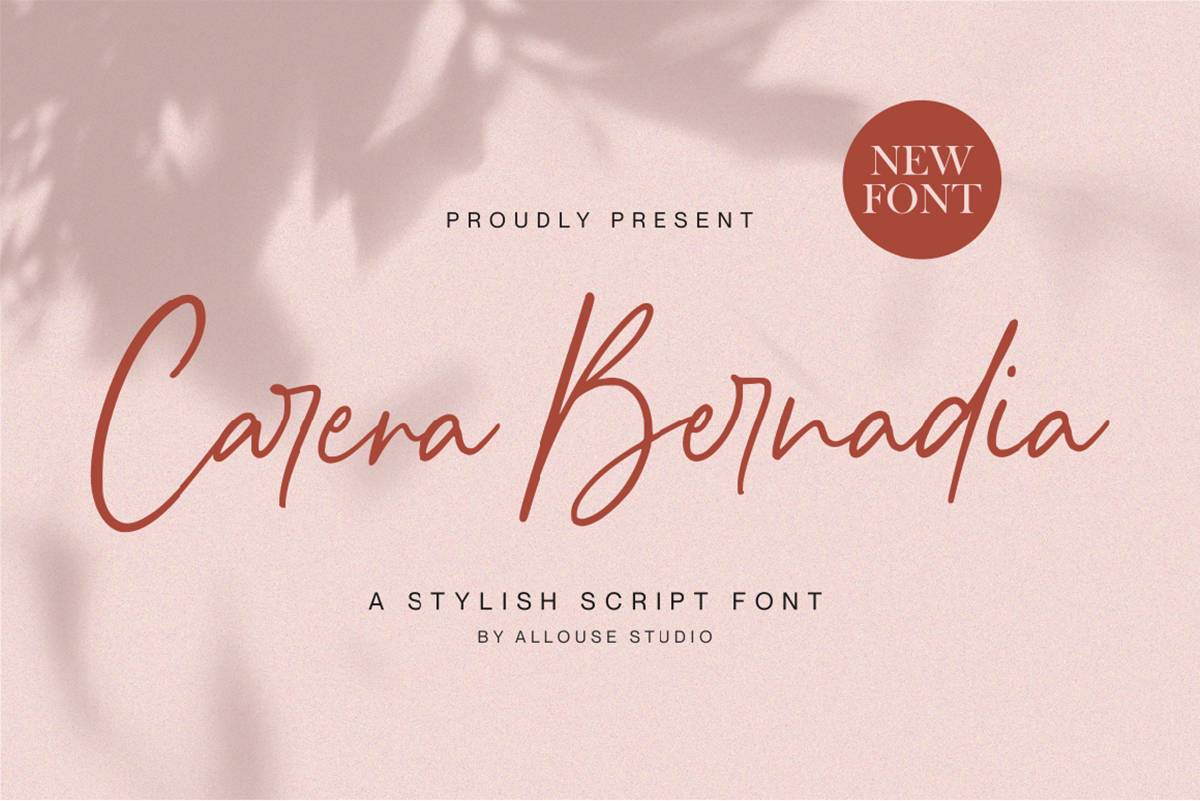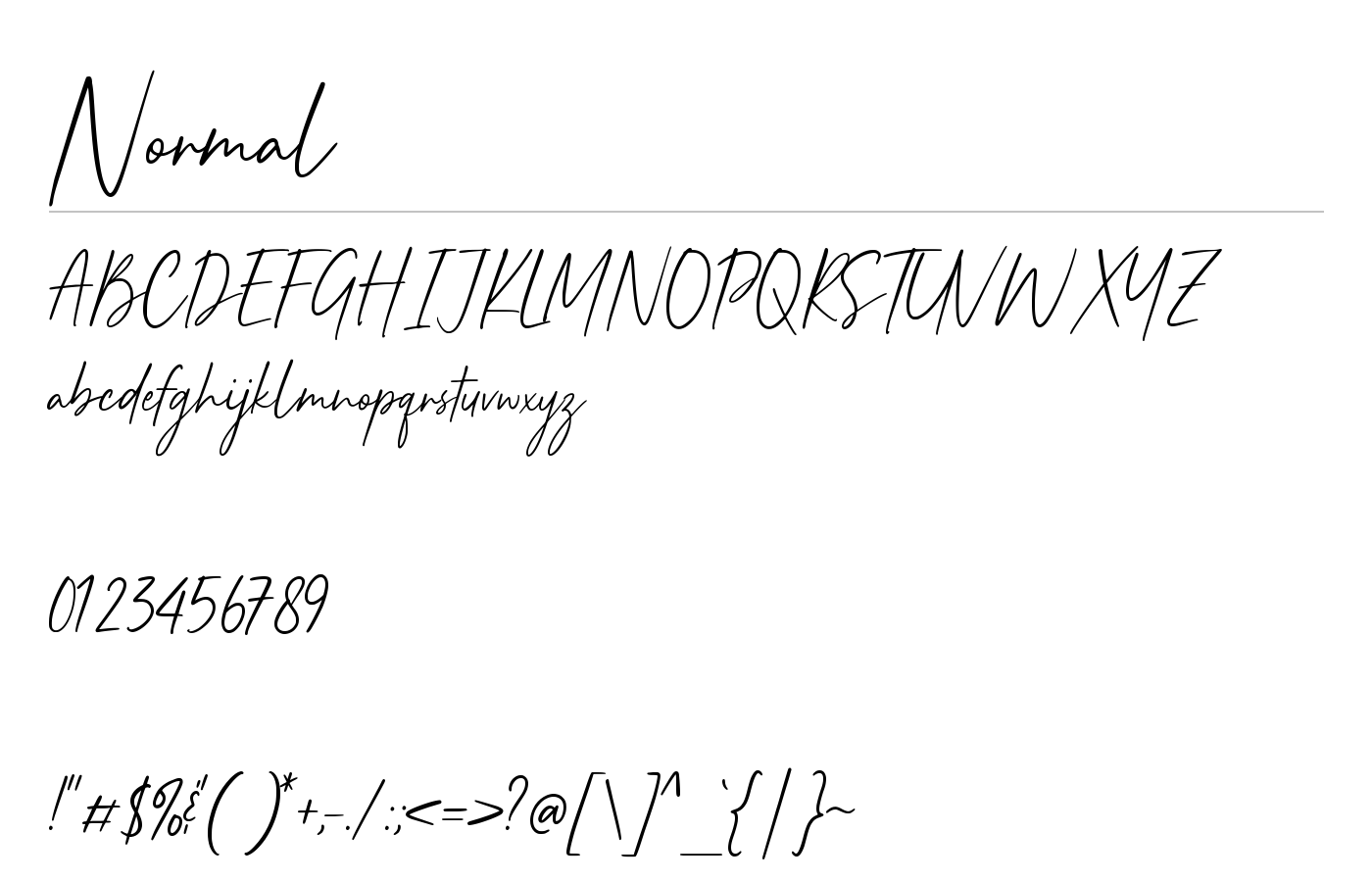
Carera Bernadia is a delicate, handwritten script font characterized by its slender, elegant strokes and natural flow. Its airy, light weight and slightly tall letterforms make it ideal for adding a personal, sophisticated touch to creative projects like invitations, branding, and editorial designs that seek a refined yet approachable feel. Perfect for uses that benefit from stylish handwriting, it brings charm and grace without overpowering the overall design.
Carera Bernadia Font
About Carera Bernadia Font